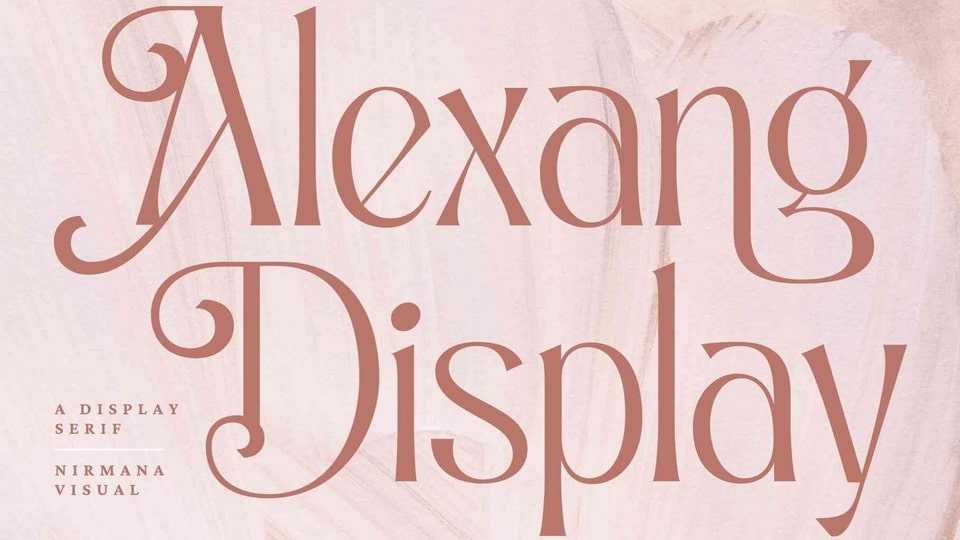
Download Alexang Display font, a contemporary and elegant serif typeface. Alexang Display offers a beautiful typographic harmony for a diversity of design projects, including logos and branding, social media posts, advertisements and product design.